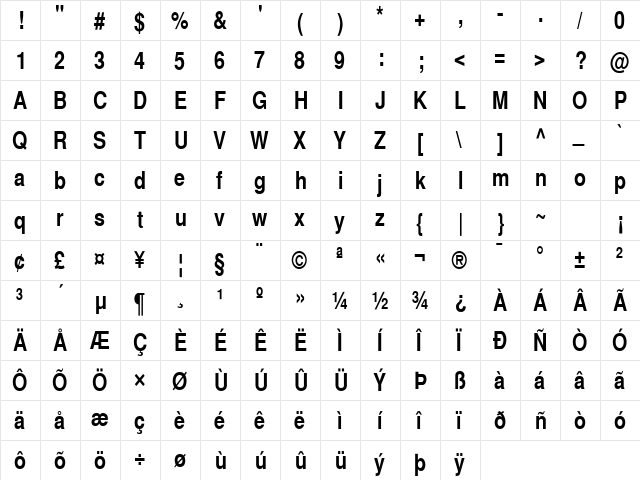
HeaveneticaNarrowSH Bold
Design Context for HeaveneticaNarrowSH Typeface
HeaveneticaNarrowSH is a composed and adaptable typeface that performs quietly and consistently across a wide range of design contexts. Its bold stroke weight gives it real presence on the page. The condensed width makes it efficient for tight spaces without sacrificing legibility.